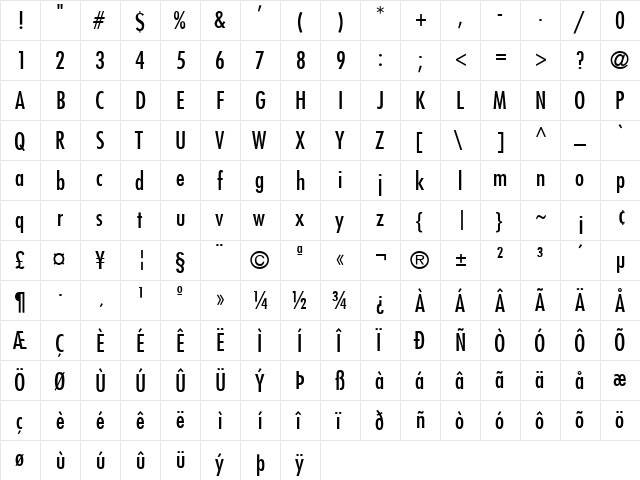
Fujiyama Regular
Design Context for Fujiyama Typeface
Fujiyama offers clean, dependable letterforms without strong stylistic allegiance, making it a practical choice for designers who need flexibility.